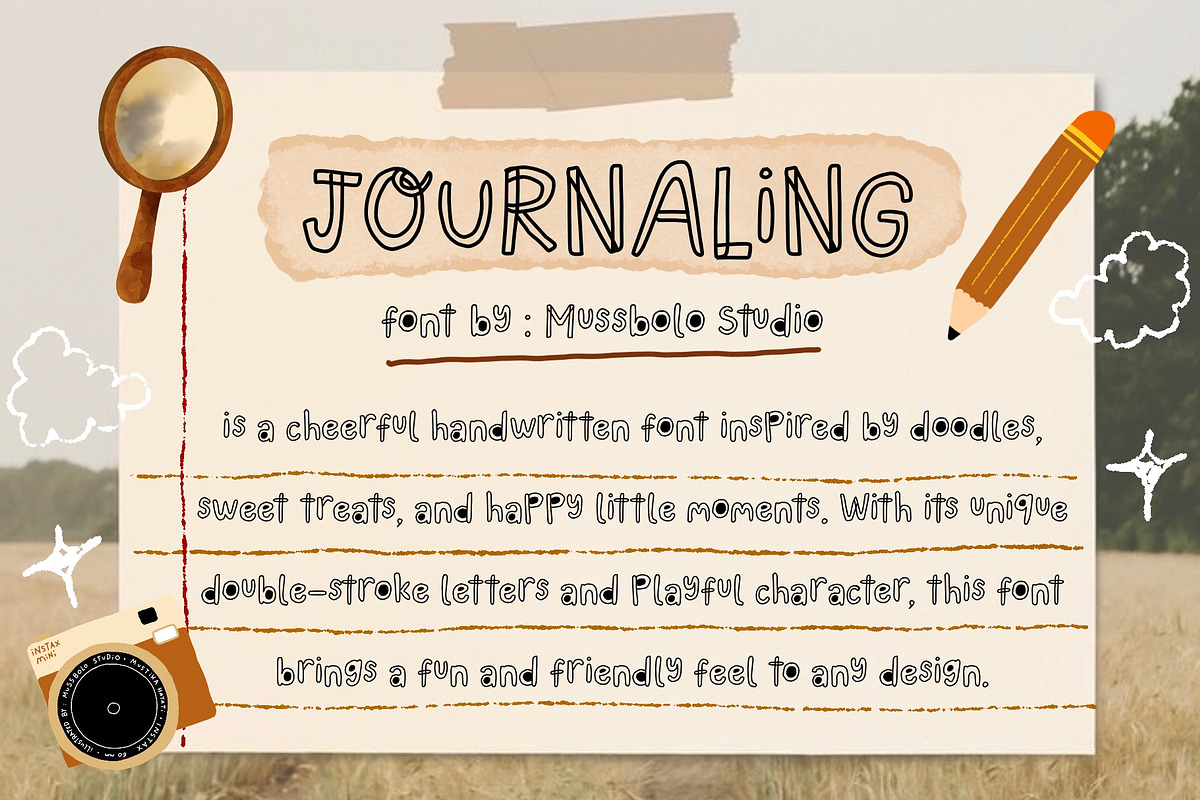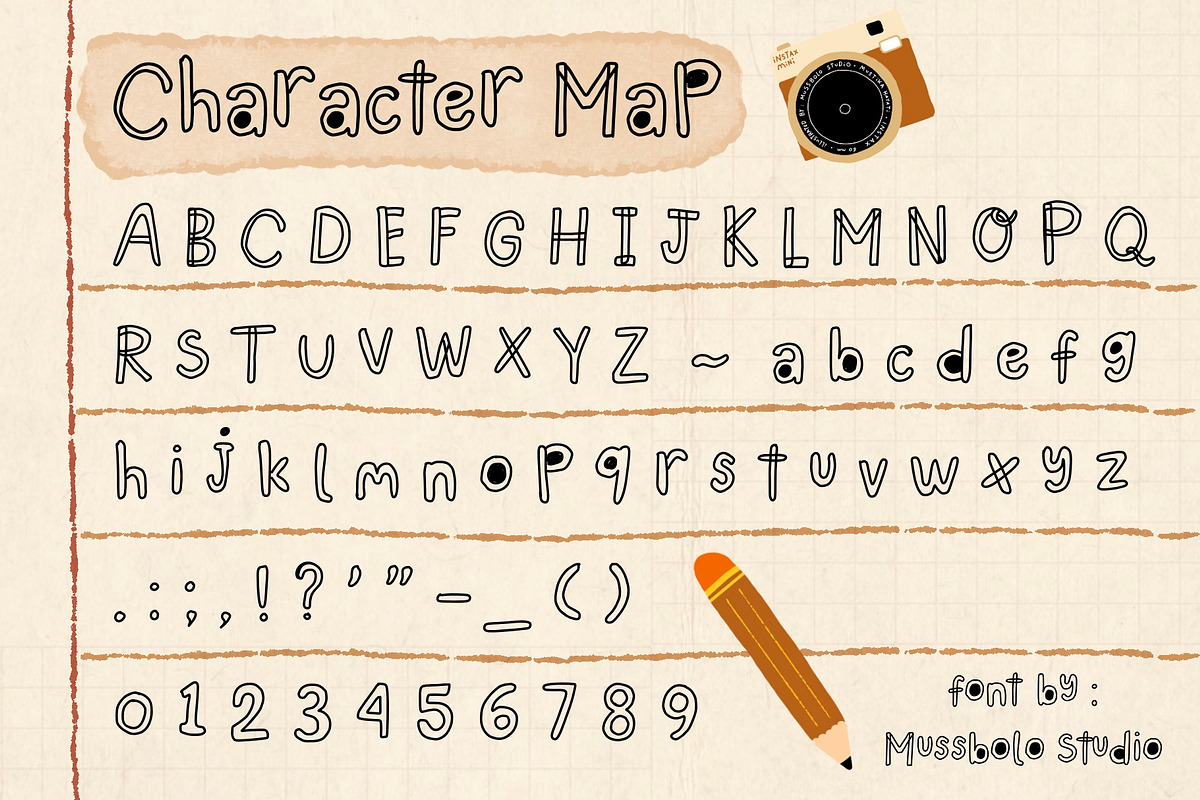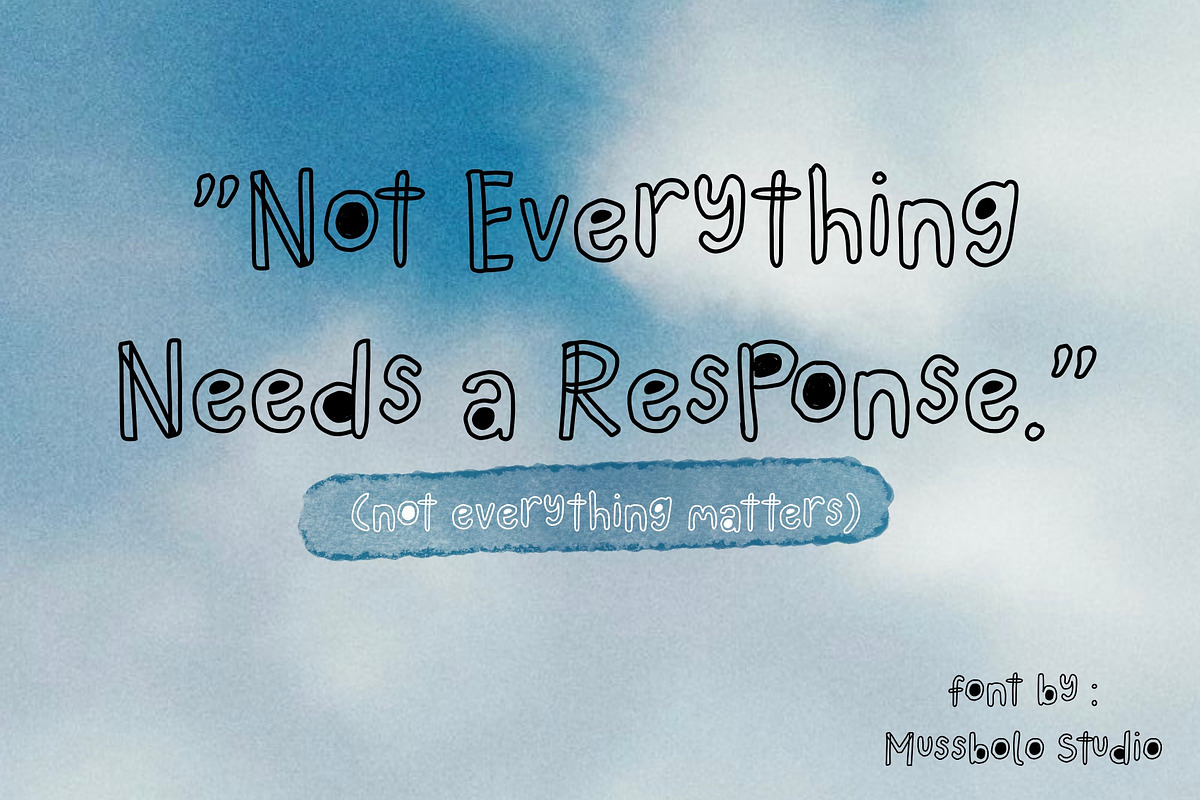
Journaling Doodle font
Handwritten font by Mussbolo Studio inspired by doodles and playful charcter. With it's unique double stroke letters this font bring fun and friendly feel to any design.
Uppercase & lowercase letters
Basic punctuation
Social media content/vlog/feed
Branding & logo
Packaging
Digital planners
Quotes & aesthetic posts
Invitations
Creative projects